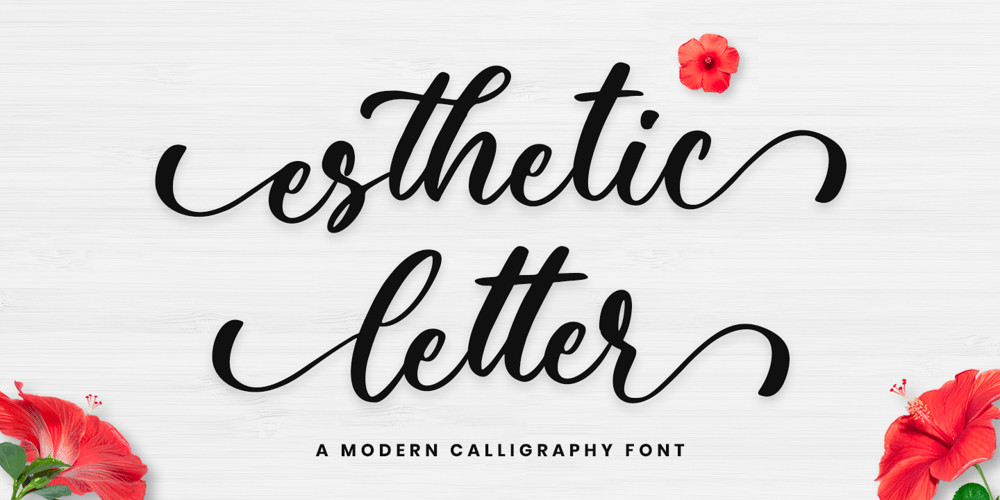
Esthetik Letter Font Family was designed by Novia Himatunnisa and published by Nissa Nana. Esthetik Letter contains 1 styles and family package options. Beauty Flower is a delicate and elegant handwritten font. Its distinct and well rounded letters make this font a masterpiece. Fall in love with its incredibly versatile style and use it to create spectacular designs! This font is PUA encoded which means you can access all of the glyphs and swashes with ease!